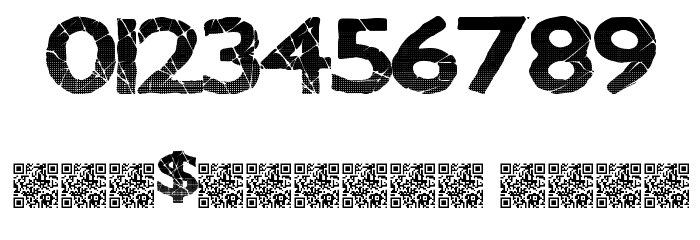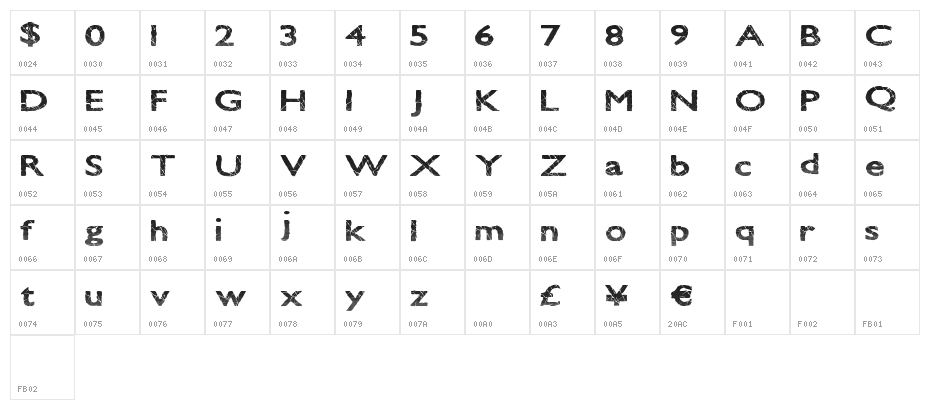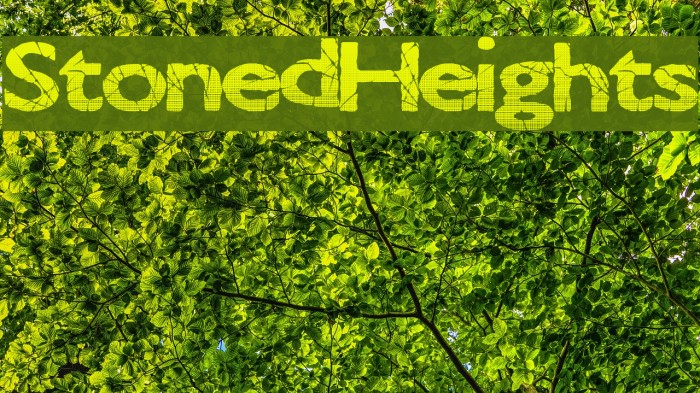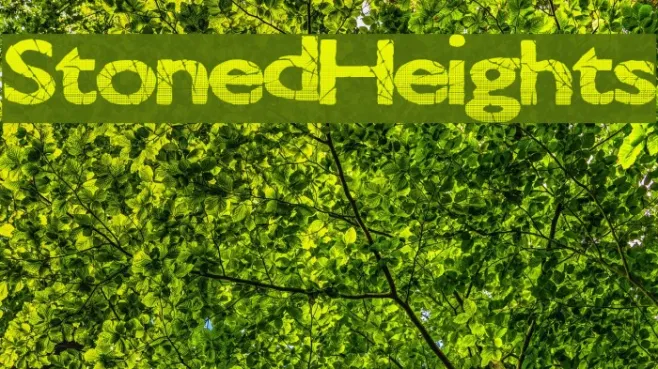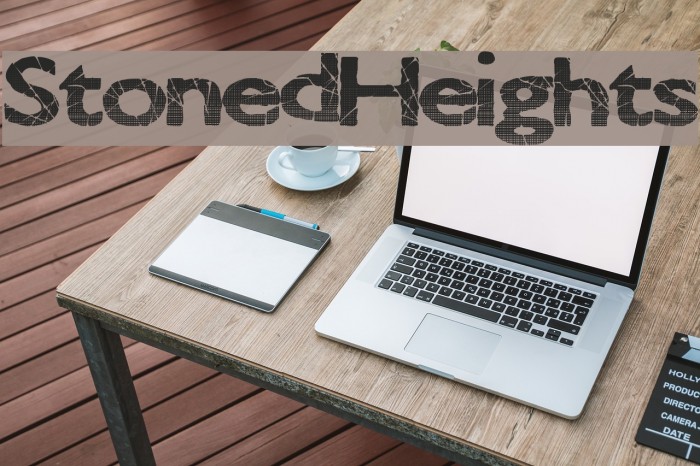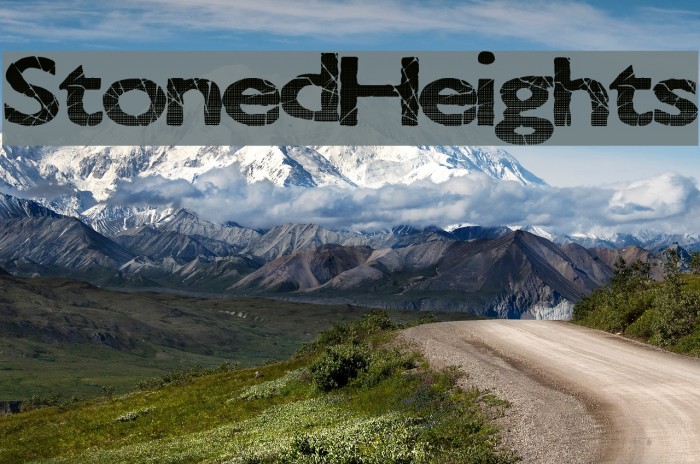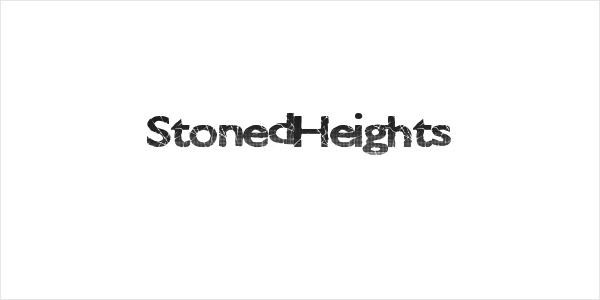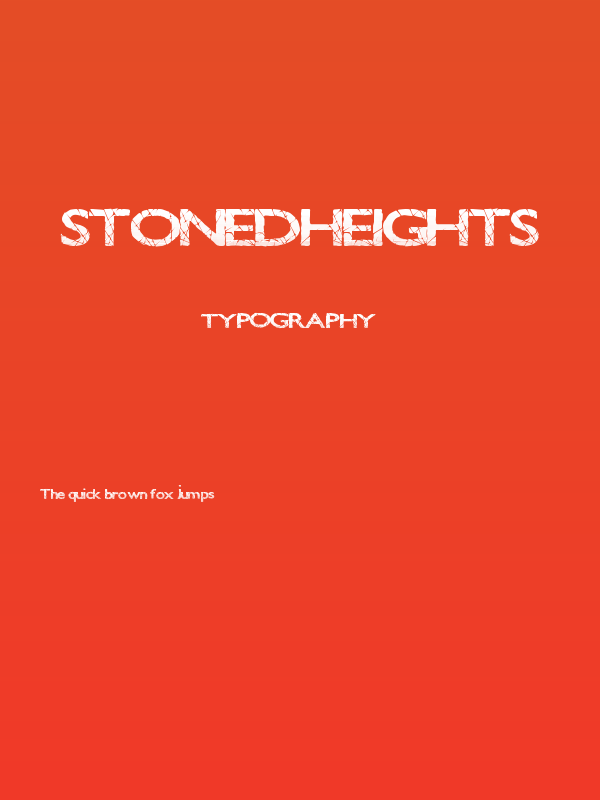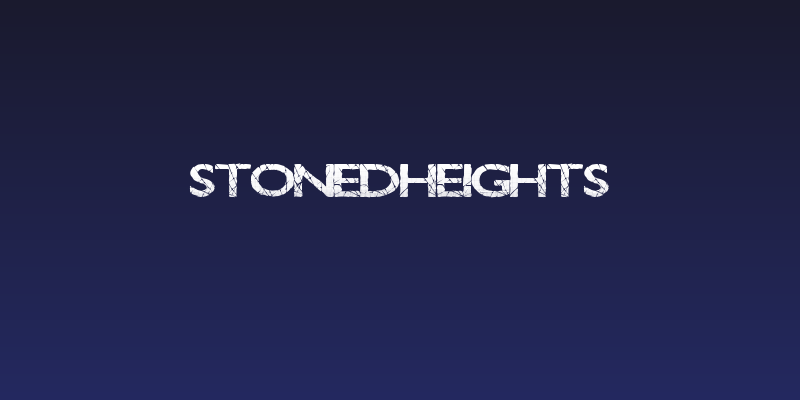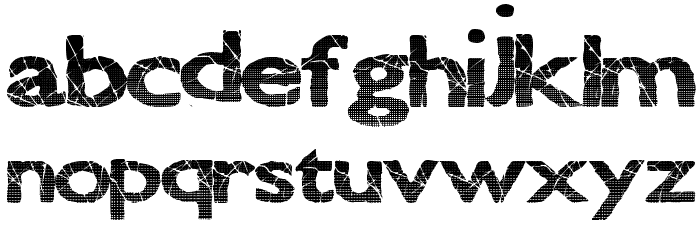
StonedHeights Font
StonedHeights Description
This font features a unique, cracked stone texture that gives it a rugged and edgy appearance. The characters are bold and impactful, with a distinct pattern that resembles shattered rock surfaces. Each letter and number is filled with intricate details, making it stand out in any design. The uppercase and lowercase letters maintain a consistent style, while the numbers and special characters complement the overall aesthetic. This font is perfect for projects that require a strong, attention-grabbing typeface with a natural, earthy feel.
Proposed ProjectsIdeal for posters, album covers, branding for outdoor or adventure-themed products, and any design needing a rugged, natural look.